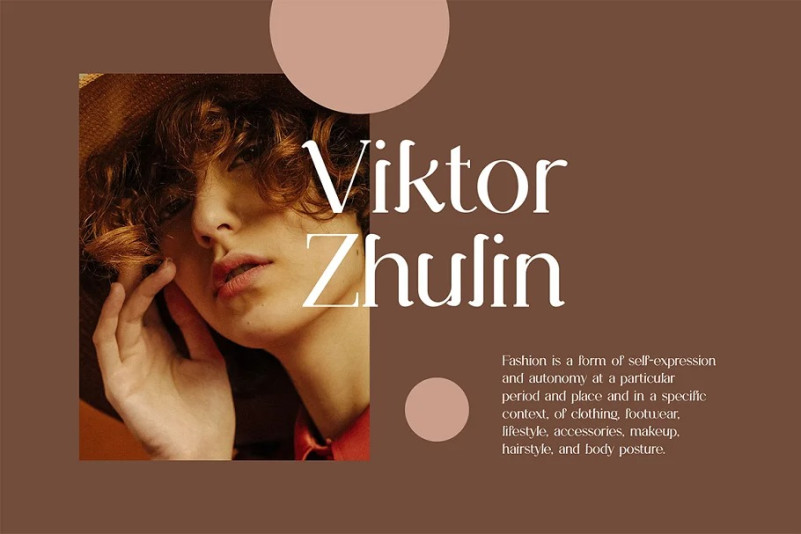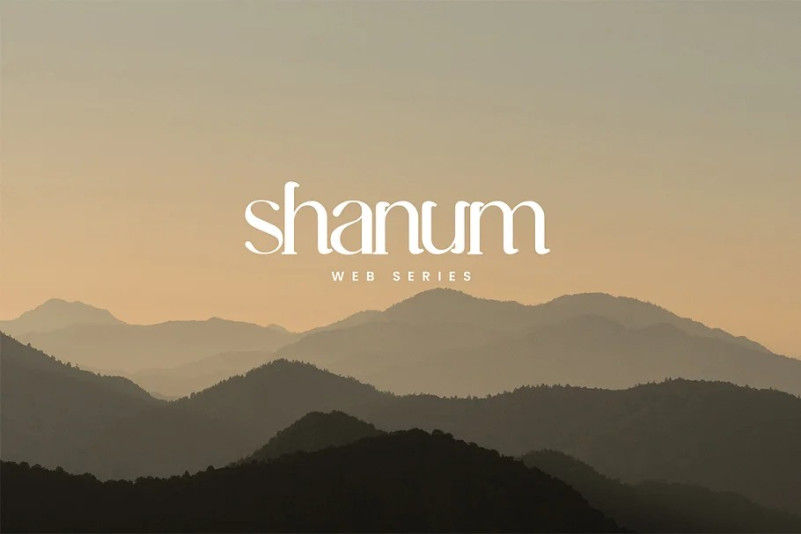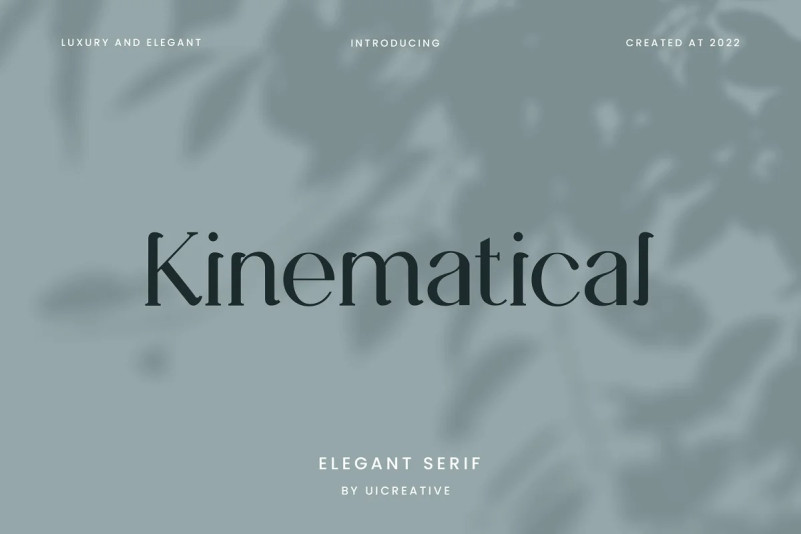
Kinematical Font
Kinematical Font – Elegant Serif Font. Modern Serif font that feels beautiful classy, elegant, and modern. This font is ideally suited for a wide variety of projects, such as signature, stationery, logo, wedding, typography quotes, magazine or book covers, website headers, clothing, branding, packaging design, and more. Also, fashion-related branding or editorial design displays both masculine and feminine qualities.